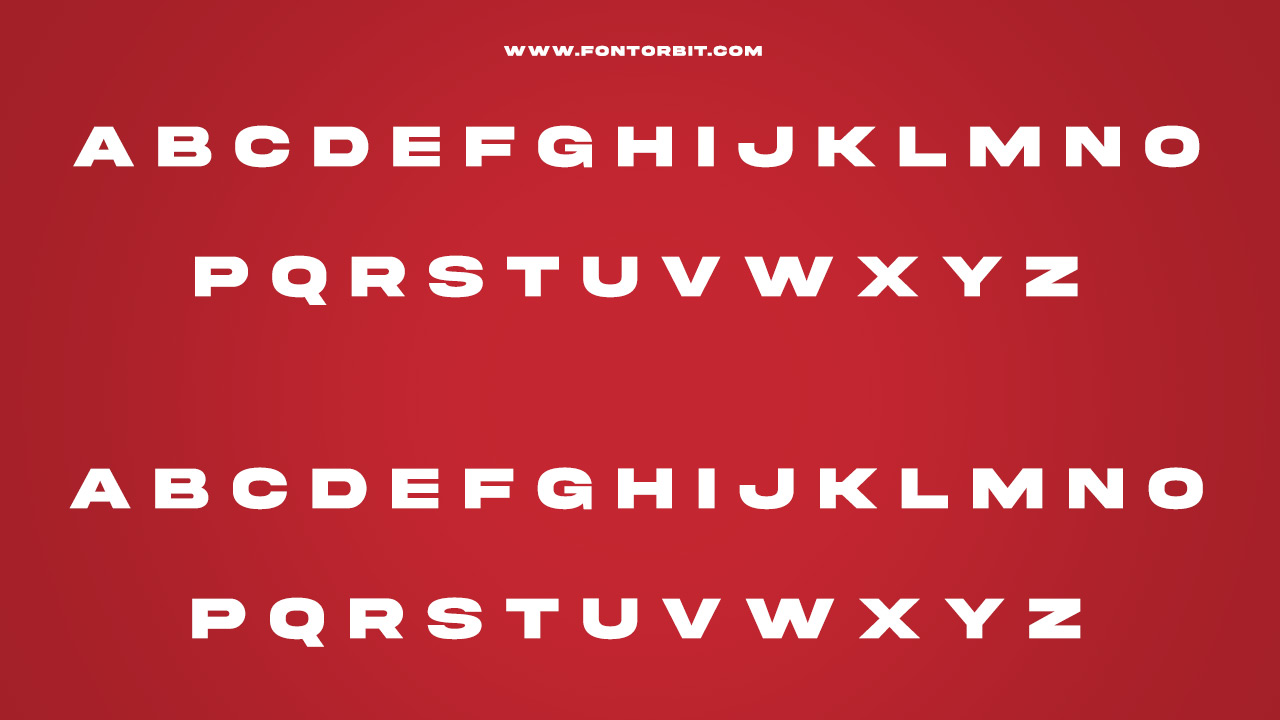
Akira is a modern, expanded sans-serif font designed by Wahyu Eka Prasetya and Andhika Pradana a renowned Japanese type designer.
It was first released in the early 2000s, gaining popularity for its clean, geometric lines and futuristic feel. Akira belongs to a family of versatile fonts suitable for a wide range of uses, from branding to editorial design.
Akira Family Includes
The Akira font family features a balanced yet bold look, ideal for headings and display text. The family offers multiple weights and styles that make it highly adaptable for different design needs.
Notable Uses Of Akira
Akira has been used in various industries due to its clean and professional look. It has been featured in tech branding, modern web design, and high-end product packaging. The font’s expanded version is especially popular in minimalist fashion branding, while the regular version is often seen in editorial layouts for technology magazines.
Akira is perfect for projects requiring a sleek, futuristic vibe. It excels in high-tech branding and digital products, making it a go-to font for startups, apps, and modern e-commerce platforms. Its versatility allows it to fit seamlessly into corporate presentations, promotional banners, and even luxury product packaging.
- Logo
- Poster design
- Beauty product
- Packaging product
- Magazine
Akira is a must-have for designers looking for a clean, modern, and expanded sans-serif font. Its geometric structure and wide-ranging font family offer creative flexibility across different mediums and platforms. Whether you are working on a tech startup or an editorial layout, Akira provides a professional, modern touch.
1.What Are Some Notable Uses For Akira?
It is popular in technology branding, fashion campaigns, and corporate presentations.
3.What Is The Design Style Of Akira?
It is a clean, modern sans-serif with geometric lines and an expanded structure.
4.Can Akira Be Used In Print?
Yes, Akira is excellent for both digital and print use.
5.Is Akira Good For Web Design?
Yes, its clean lines and readability make it a great choice for web design.